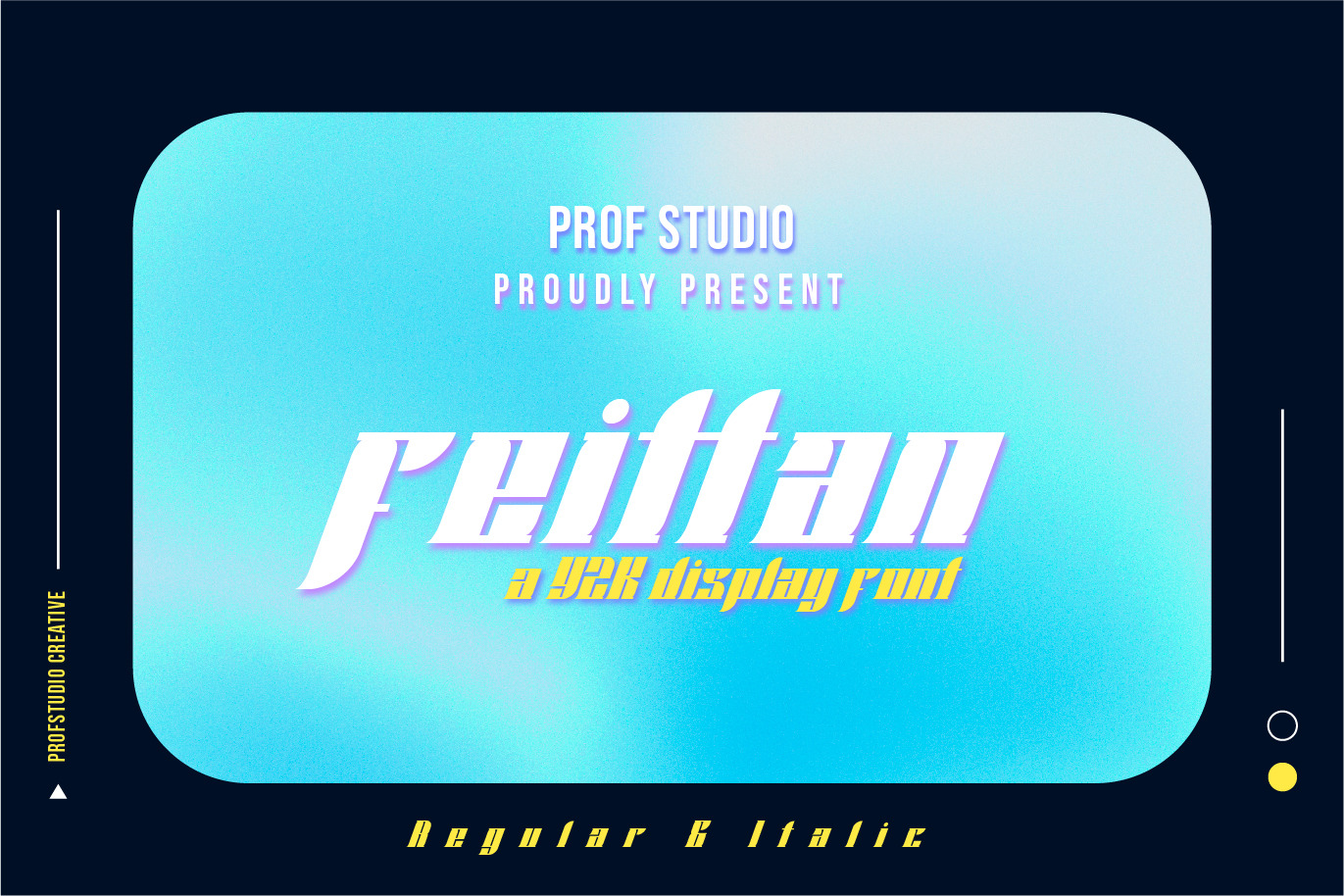
Feittan - Y2K Display Font
Hi Ladies and Gentleman ! Proudly present Y2K Display Font “Feittan” for your business.
Feittan - Y2K Display Font which can be interpreted professional. we keep this font looks modern, aesthetic, readable, stylish, catchy and easy to use.
Feittan - is the great choice for event design ,magazine, brand design, invitation, and many other design project. Feittan here to make your work to high level!!!